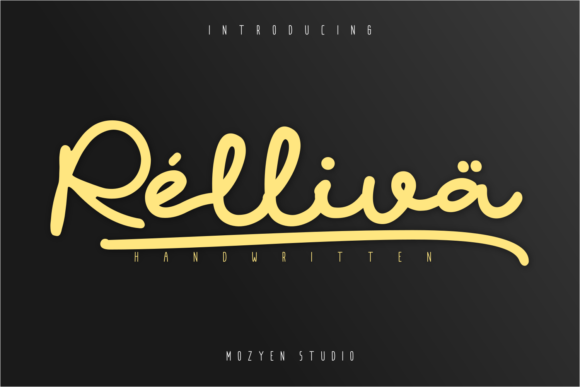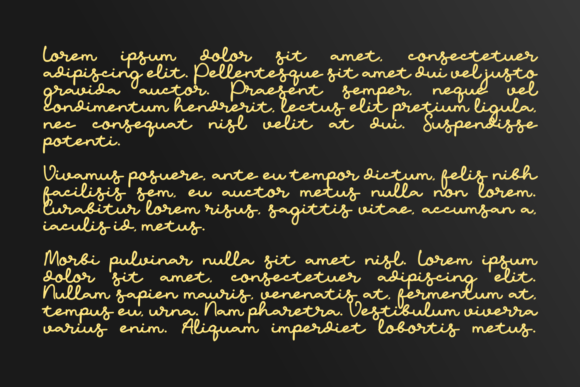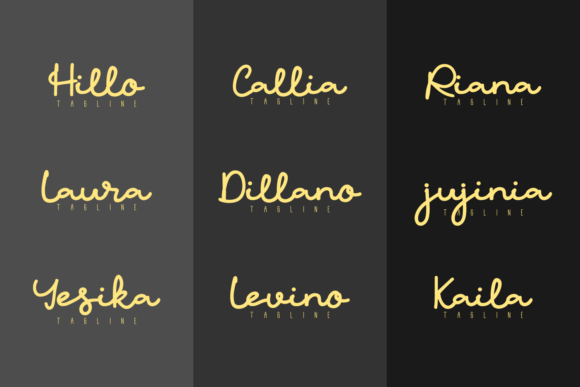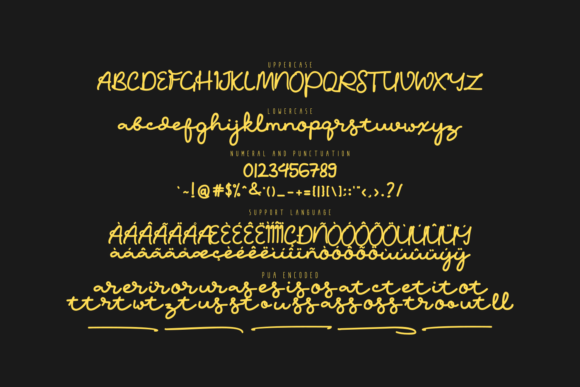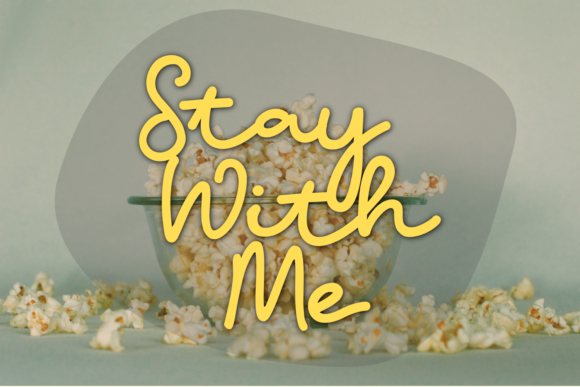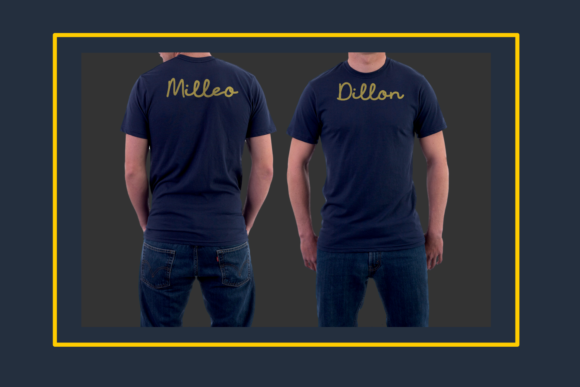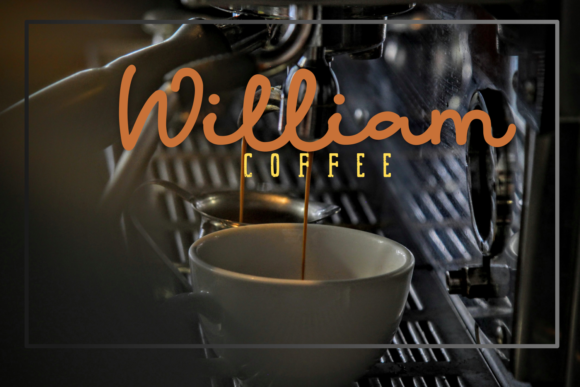
Relliva Font
About Relliva Font
Relliva is a cute and friendly handwritten font, designed with the help of a brush pen. Fall in love with its incredibly versatile style and use it to create gorgeous wedding invitations, beautiful stationary art, eye-catching social media posts, and much more!